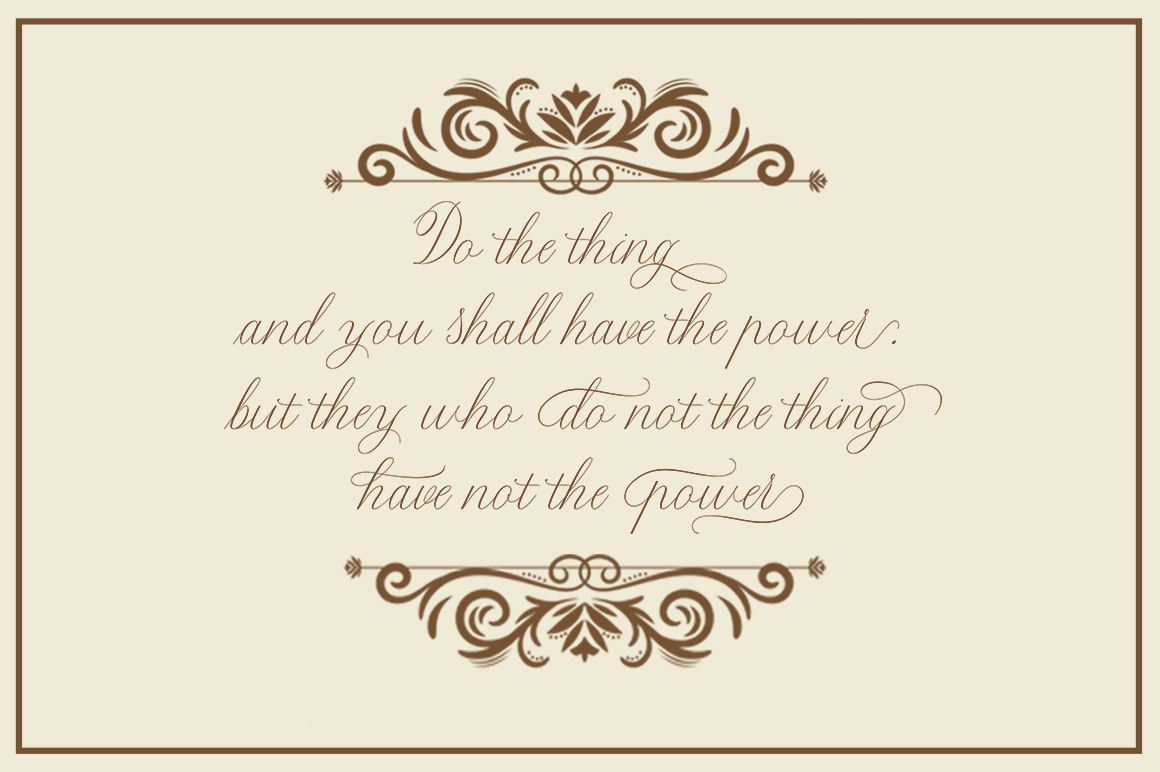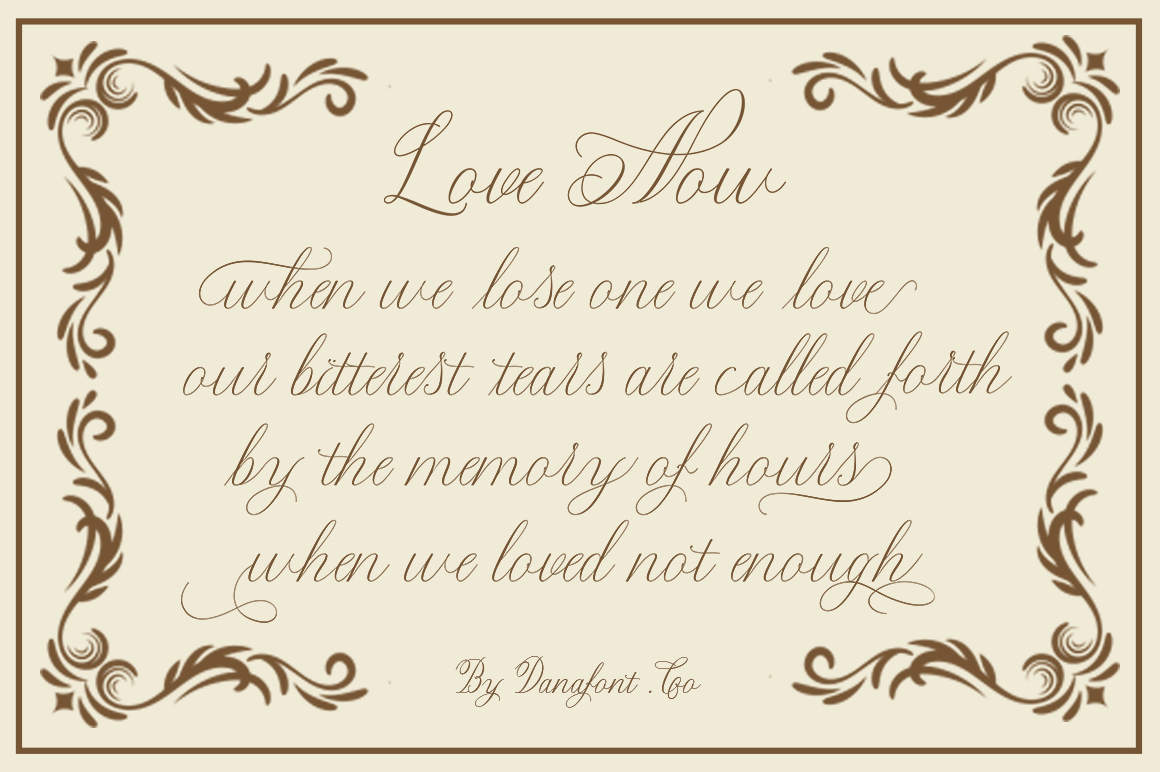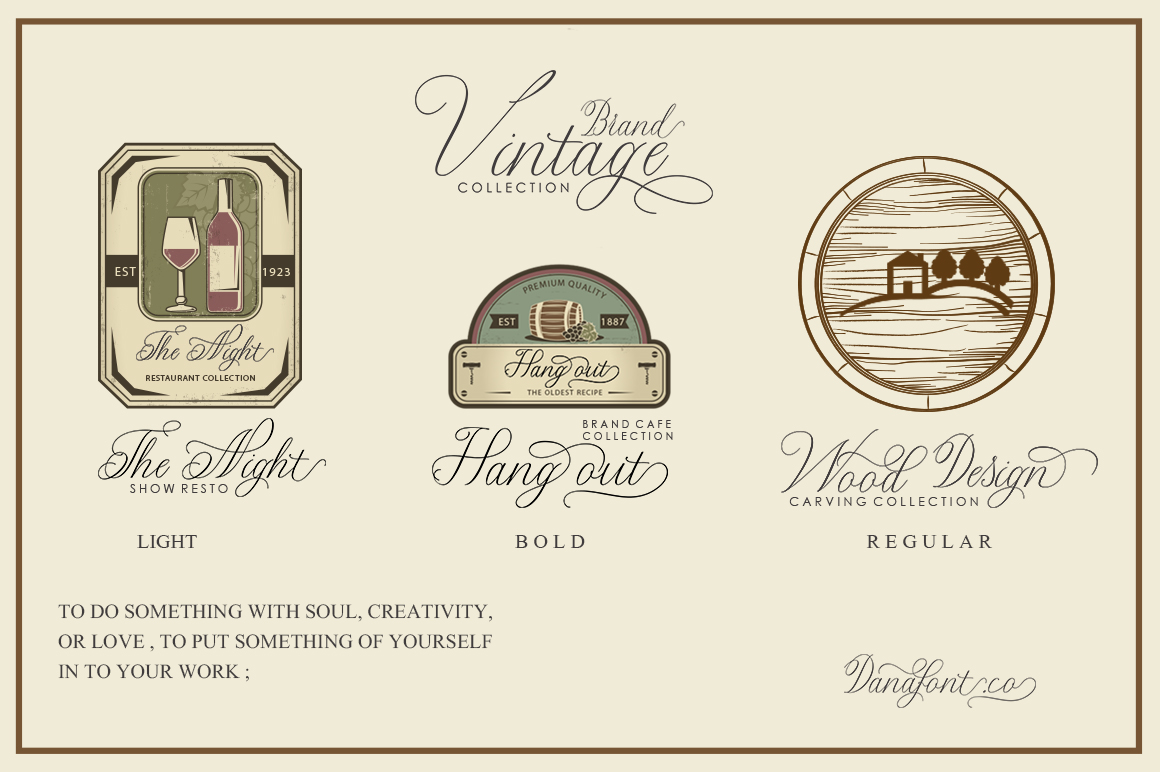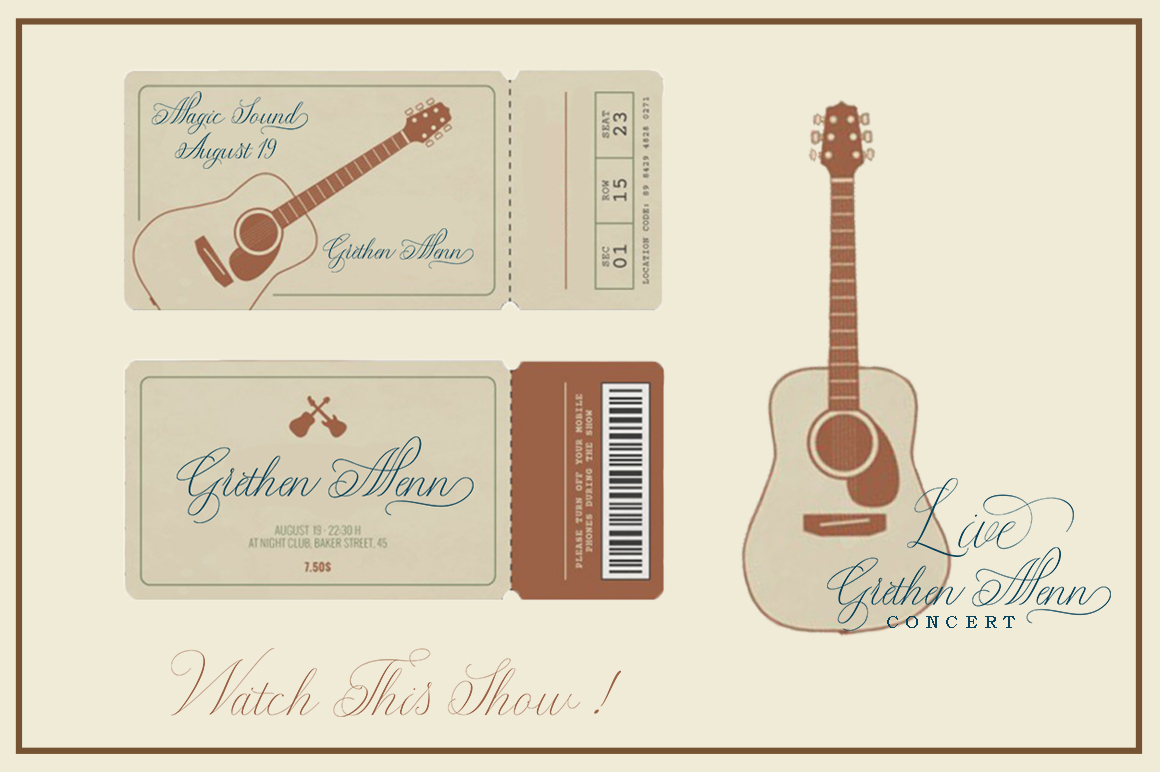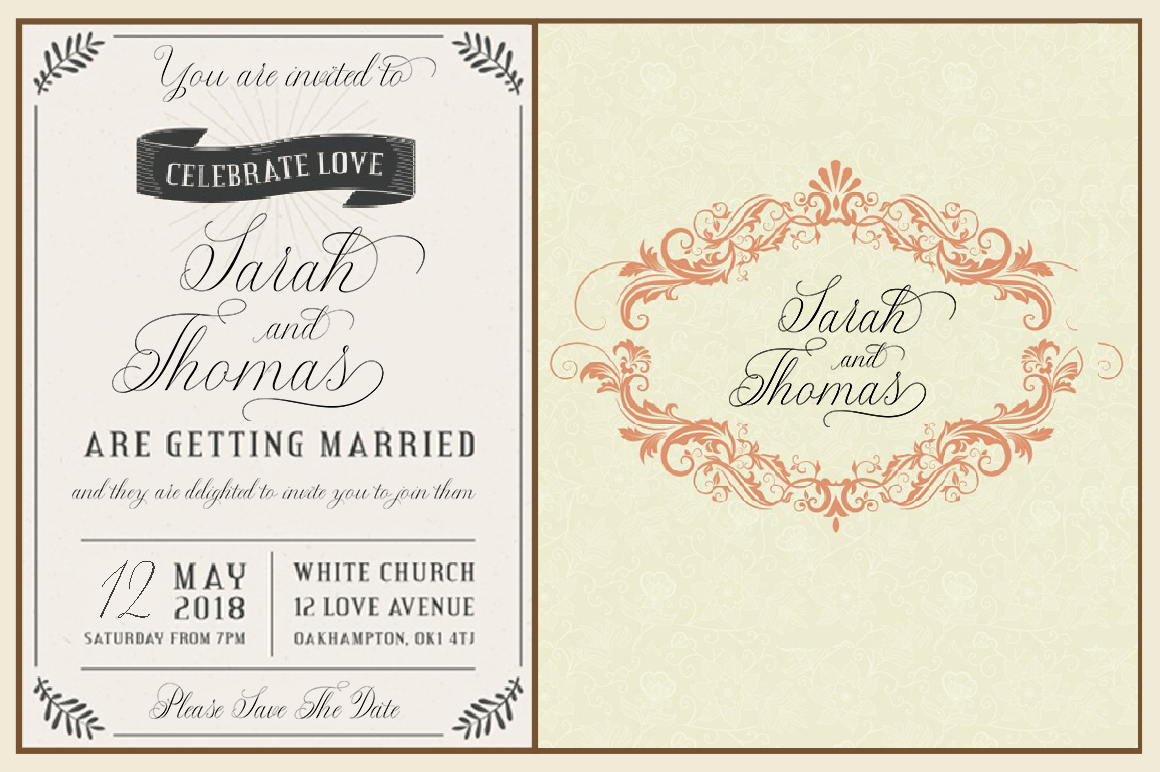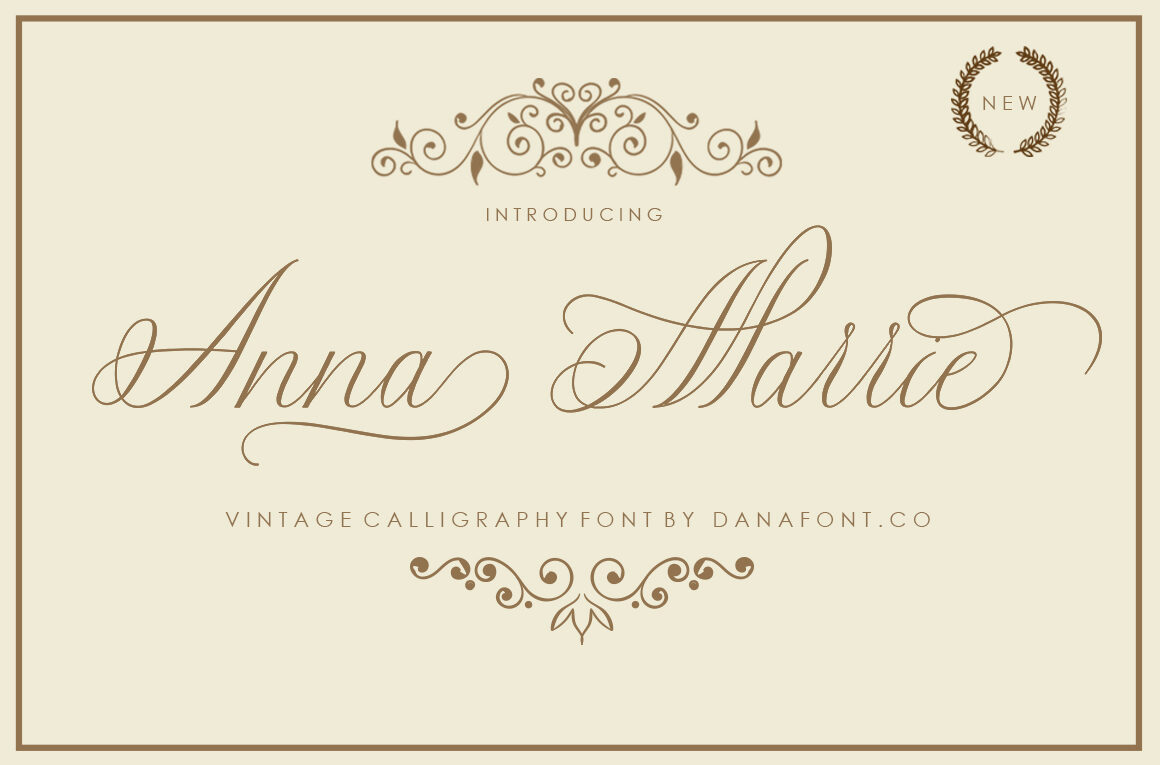
Discover the Elegance of Anna Marrie Font: A Beautiful Calligraphy Script Font
Are you a designer or crafter looking for a font that exudes elegance and sophistication? Look no further than the Anna Marrie font, a stunning calligraphy script font that is sure to elevate your designs to the next level. With its delicate strokes and hand-lettered charm, this font is perfect for formal uses and is sure to leave a lasting impression.
What Makes Anna Marrie Font So Special?
Anna Marrie font is a beautiful calligraphy script font that comes with tons of alternate characters and styles, giving you the flexibility to create unique and eye-catching designs. This font is designed to bring tons of stylistic elegance to your projects, making it ideal for formal uses such as wedding invitations, event branding, and luxury packaging.
One of the standout features of Anna Marrie font is its subtle yet glamorous appearance. The delicate strokes and hand-lettered style give the font a sense of sophistication and refinement, making it perfect for designers and crafters who want to add a touch of elegance to their work.
Key Features of Anna Marrie Font
• Tons of alternate characters and styles: With Anna Marrie font, you get access to a wide range of alternate characters and styles, giving you the flexibility to create unique and eye-catching designs.
• Hand-lettered charm: The font’s hand-lettered style gives it a personal and elegant touch, making it perfect for formal uses.
• Delicate strokes: The font’s delicate strokes add to its sophisticated and refined appearance, making it ideal for luxury branding and packaging.
• Subtle yet glamorous: Anna Marrie font is subtle yet glamorous, making it perfect for designers and crafters who want to add a touch of elegance to their work.
Uses for Anna Marrie Font
Anna Marrie font is a versatile font that can be used for a wide range of projects, including:
• Wedding invitations and stationery: The font’s elegant and sophisticated appearance makes it perfect for wedding invitations and stationery.
• Event branding: Anna Marrie font is ideal for event branding, including conferences, parties, and other formal events.
• Luxury packaging: The font’s luxurious and refined appearance makes it perfect for luxury packaging, including high-end product branding.
• Signage and displays: Anna Marrie font can be used for signage and displays, including storefronts, exhibitions, and trade shows.
Tips for Using Anna Marrie Font
Here are some tips for using Anna Marrie font in your designs:
• Use it sparingly: Anna Marrie font is a statement font, so use it sparingly to add emphasis and elegance to your designs.
• Pair it with a sans-serif font: Pairing Anna Marrie font with a sans-serif font can create a beautiful contrast and add visual interest to your designs.
• Experiment with colors: The font’s elegant appearance lends itself well to a range of colors, so experiment with different color combinations to find the one that works best for your design.
Anna Marrie font is a beautiful calligraphy script font that is sure to elevate your designs to the next level. With its delicate strokes, hand-lettered charm, and tons of alternate characters and styles, this font is perfect for formal uses and is sure to leave a lasting impression. Whether you’re a designer or crafter, Anna Marrie font is a must-have font that will add a touch of elegance and sophistication to your work.